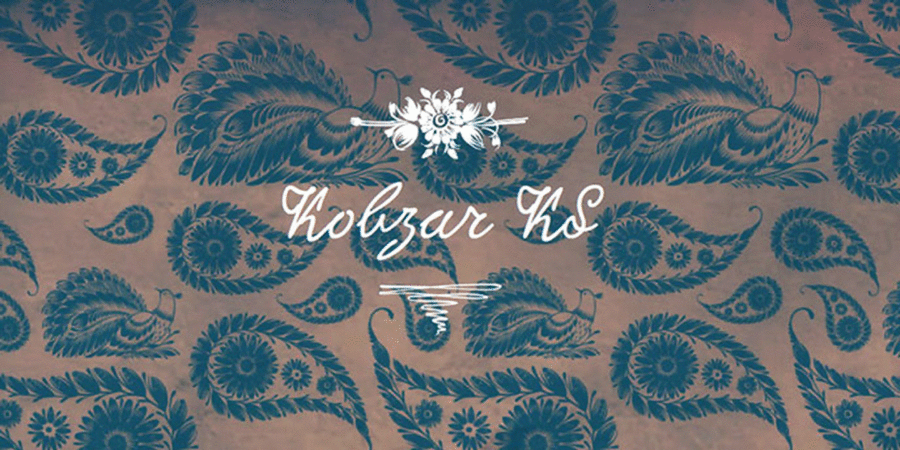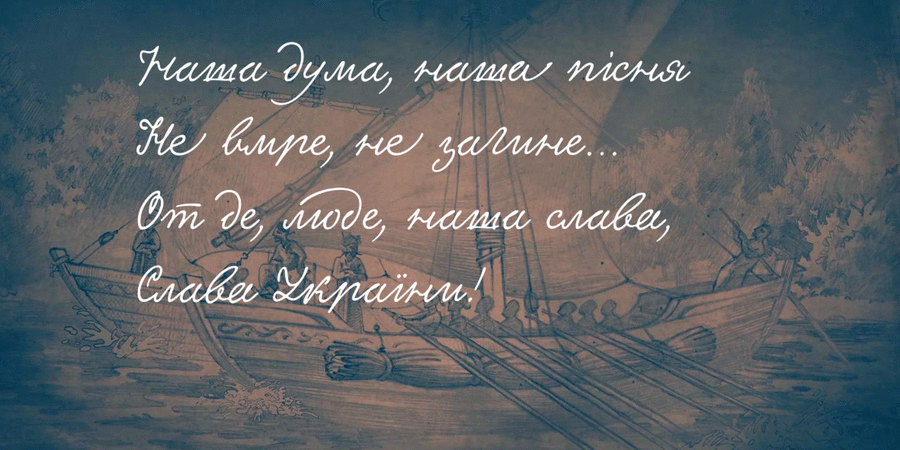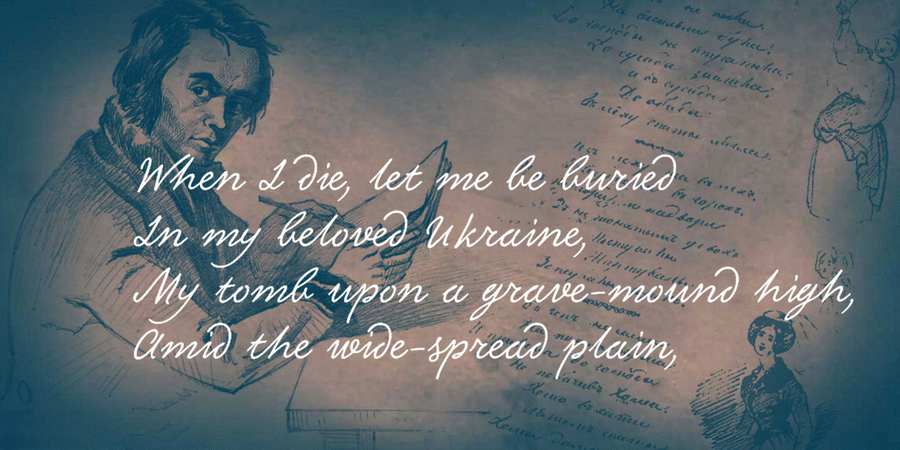
Logo font pair with Fiorina Title Semi Bold (1 of 54)About KobzarKSOn the occasion of the 200th anniversary of Taras Shevchenko's birth, Kyivstar, a national telecom operator, presents a unique font to all Ukrainians – Kobzar KS. Based on the handwriting of the famous poet and artist, this font has all the necessary elements of modern digital design. There is support for about 100 languages, numbers, punctuation and mathematical signs, and fractions. For the most demanding users, ligatures and ornaments are integrated into the font, and several forms of the same letters are provided. The handwritten effect creates a sense of belonging to the national life and a specific historical era. To create the font, Shevchenko's handwritten texts were digitized. And the Latin letters were actually invented by designers – Shevchenko, unfortunately, did not live through the era of globalization and bilingualism. There are also features characteristic of Shevchenko's writing, such as elongated strokes in individual letters at the end of words. The designers themselves, Gennadiy Zarechniuk, Dmytro Rastvortsev, and Lukyan Turetsky, called their work on Latin letters, ligatures, and other cosmetic nuances a "creative experiment." The full functionality of the font is revealed when using a font file in OTF (OpenType Font) format. Everyone can download the Kobzar KS font absolutely free and use it for their own needs in all cases provided for by the license agreement. The font was designed in 2014.
Associations for font family KobzarKSTypeface personality and character:
emotional, temperamental, sensual, inspired, poetic, dynamic, freewheeling, original, picturesque, dashing, artistic, distinctive, alive, historical, creative, autumn, quick, presents
poetry, lyrics, literature, museum, art, history, theater, holiday, fall, embroidered, bank note, coin, Instagram, graphics, illustration Typeface associated with age: